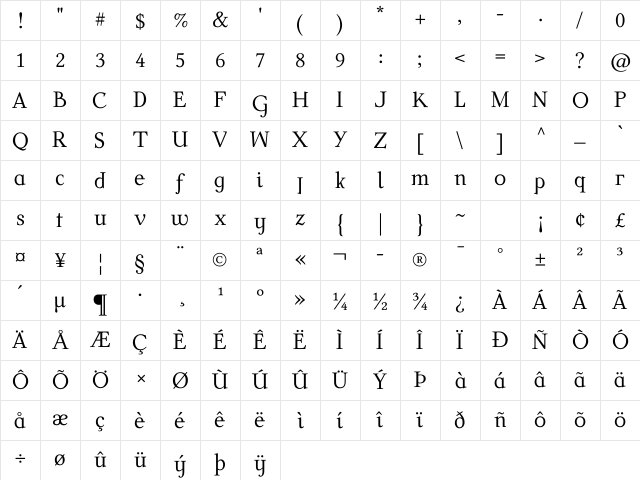
Complete Libertinage Full glyph index. Displaying only characters natively supported by Libertinage Full font.
Libertinage is a composed and adaptable typeface that performs quietly and consistently across a wide range of design contexts.